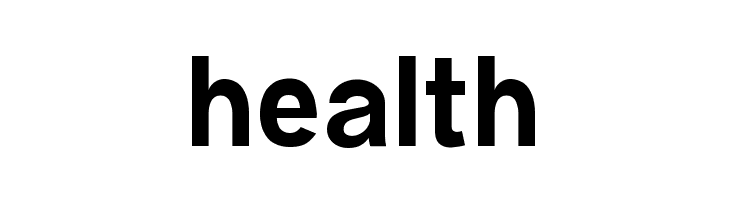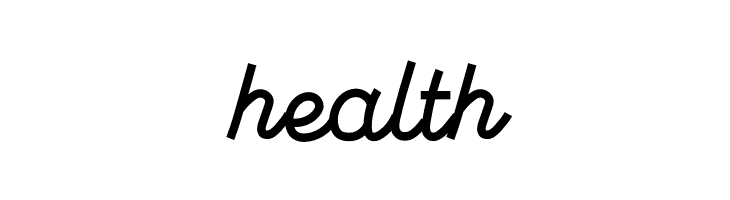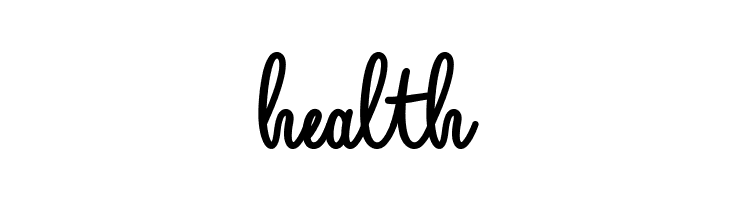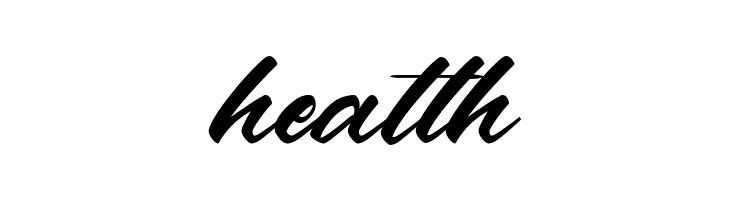
• Andala Bold
A bold, modern sans-serif font with clean lines and uniform strokes.
• Andala Bold Italic
A bold, italicized font with a strong, dynamic appearance.
• Andala Italic
A modern italic font with smooth curves and a sleek design.
• Andalan
A fluid and elegant script font with a modern, dynamic style.
• Andalan
A dynamic and fluid script font with a modern, playful style.
• Andalan art design
A playful, artistic script font with flowing, cursive design.
• Andalan Eug
A lively, handwritten font with fluid strokes and a modern, casual aesthetic.
• Andalan-artdesign
An elegant, flowing script font with ornate uppercase and smooth lowercase characters.
• Andalas
A bold, decorative font with vintage flair and high contrast strokes.
• Andalas Regular
A bold, flowing script font with elegant, connected characters.